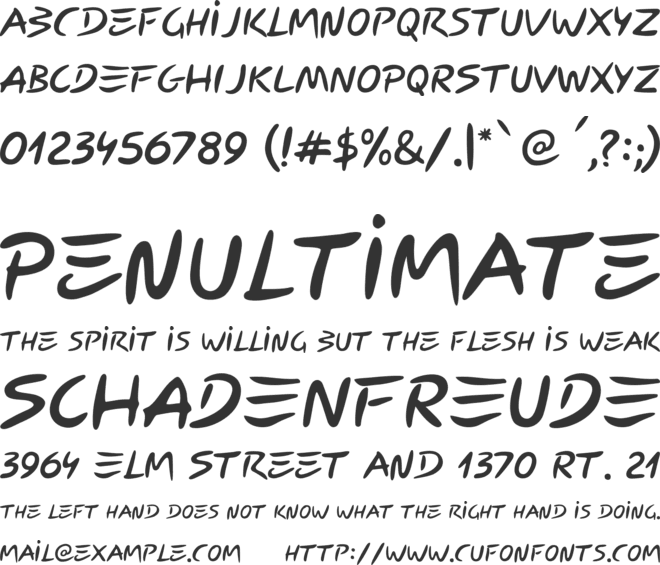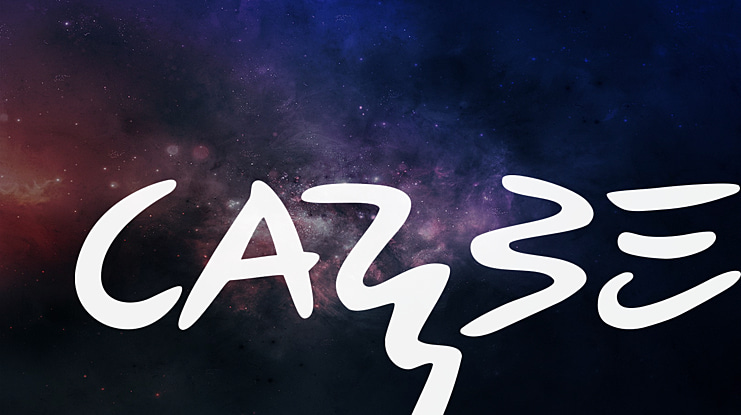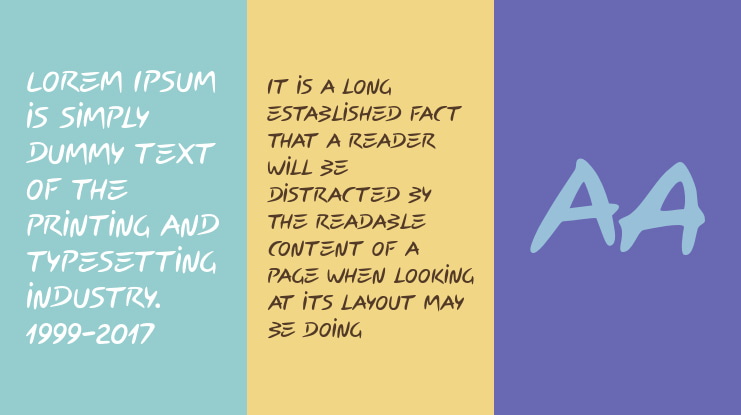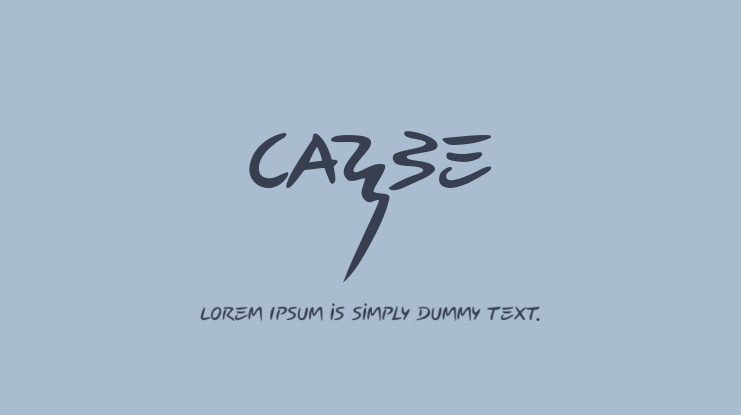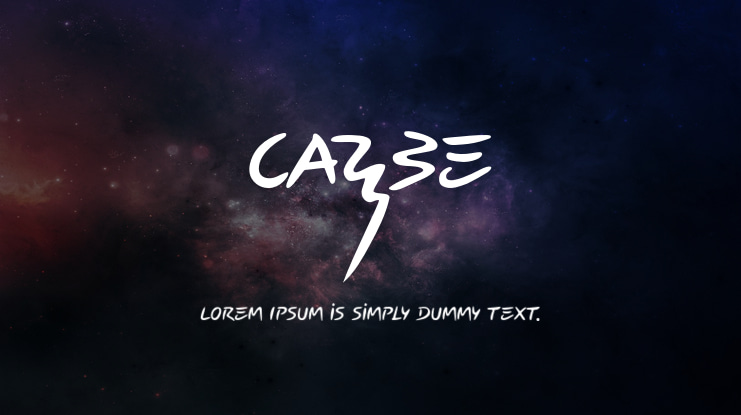
Carybe Font
Genilson Lima Santos
CARYBÉ is a script typeface inspired by the signature of the painter and sculptor Carybé (http://www.carybe.com.br) (1911 — 1997).This font is free for personal and commercial uses. Donations are highly appreciated.